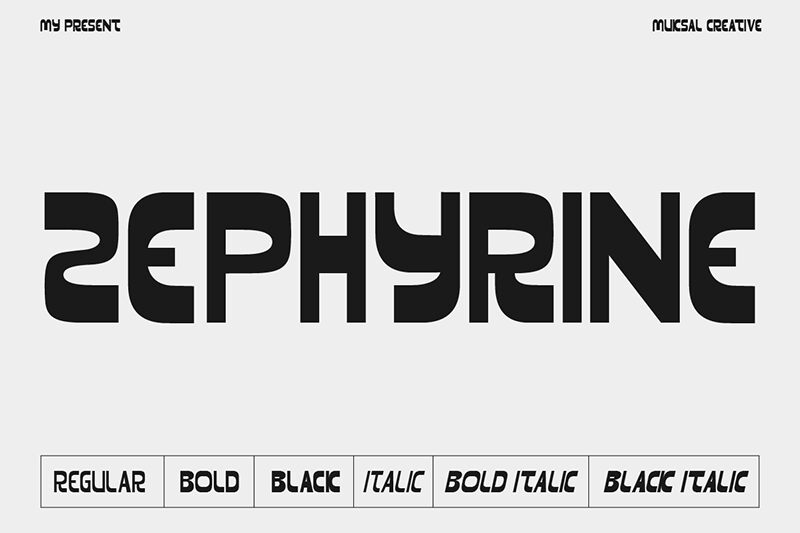
Zephyrine Black
Zephyrine Black font by Muksal Creative is a rounded, futuristic, and bold display typeface. Its condensed letterforms carry a contemporary feel and smooth flow with the combination of both uppercase and lowercase letters. The minimalistic retro style will suit all sorts of projects including vintage business logos.
Use it for album covers, stationery designs, game interfaces, publication plan design, advertising billboards, banners, posters background ideas as well as labels & packaging. Other suggested applications include titles for websites or mobile apps such as food delivery apps and Blogs related to art & culture or similar.